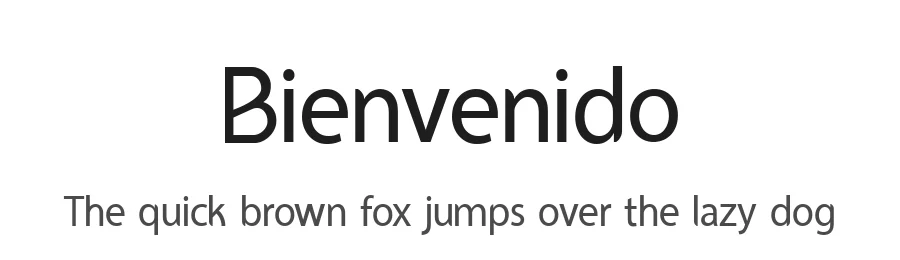
About Vanlose BookType Font
Vanlose BookType is a clean, straightforward sans-serif typeface designed by Martin Sørensen. With 236 glyphs and support for 209+ Latin-based languages, this font delivers legible, no-frills typography suited to a wide range of practical applications where precision and clarity matter above all else.
The font's simplicity makes it particularly effective for web interface design, where readability and screen legibility take priority over stylistic flourishes. It works equally well for minimal product branding, content-heavy blog layouts, and professional presentations that demand straightforward typography without distraction. Educational materials and reference documents benefit from its neutral character, as does signage where quick comprehension is essential. Mobile app labels and dashboard interfaces are natural homes for this typeface, where space constraints and user focus require unambiguous letterforms.
Corporate communications, from email templates to printed reports, gain clarity through Vanlose BookType's direct approach to letterform design. Its no-fuss philosophy also makes it a reliable choice for data-heavy contexts like spreadsheet layouts, technical documentation, and user manuals. This is a free download from this page, with licence terms available there. Pair it with a serif companion for body-text contrast in longer reading passages, or deploy it exclusively across an entire design system where consistency and legibility are your core goals.
Vanlose BookType Font is a versatile sans-serif font that works for both headings and body text. Pair it with a contrasting serif or slab serif font to add visual interest and a clear distinction between titles and body copy.
Vanlose BookType Font